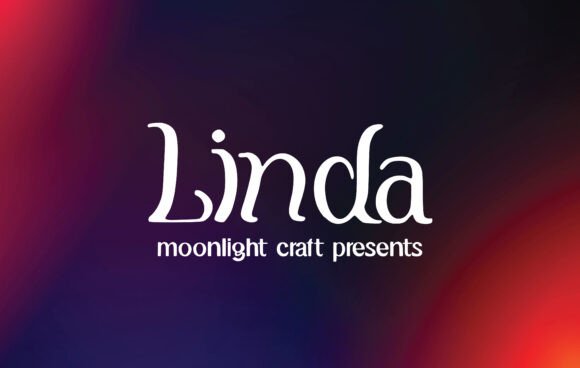
Linda Font: Elevate Your Creative Ideas with this Beautiful Handwritten Font
Linda Font is a stunning handwritten font that has the potential to take your creative ideas to new heights. With its unique and elegant style, it’s the perfect choice for creating eye-catching logos, branding, and quotes. In this article, we’ll explore the features and benefits of Linda Font, and how it can help you elevate your design game.
What is Linda Font?
Linda Font is a beautiful handwritten font that is designed to add a touch of elegance and sophistication to your designs. It’s a versatile font that can be used for a variety of projects, from logos and branding to quotes and social media graphics. With its flowing lines and delicate curves, Linda Font is sure to capture the attention of your audience and leave a lasting impression.
Key Features of Linda Font
- Unique and Elegant Style: Linda Font has a distinctive and stylish look that sets it apart from other fonts. Its elegant curves and flowing lines make it perfect for creating sophisticated designs.
- Handwritten with Love: Linda Font is a handwritten font that is crafted with love and care. Each letter is carefully designed to ensure that it looks natural and effortless.
- High-Quality Design: Linda Font is designed with high-quality graphics, ensuring that it looks great in any size or resolution.
- Easy to Read: Despite its elegant style, Linda Font is easy to read, making it perfect for body text and quotes.
- Multilingual Support: Linda Font supports multiple languages, making it a great choice for designers who work with international clients.
Benefits of Using Linda Font
So, why should you choose Linda Font for your next design project? Here are just a few benefits of using this beautiful handwritten font:
- Adds Elegance and Sophistication: Linda Font adds a touch of elegance and sophistication to your designs, making it perfect for high-end brands and luxury products.
- Stand Out from the Crowd: With its unique and stylish look, Linda Font helps your designs stand out from the crowd and grab attention.
- Improves Readability: Linda Font is easy to read, making it perfect for body text and quotes. This improves the overall readability of your designs and ensures that your message gets across.
- Versatile: Linda Font is a versatile font that can be used for a variety of projects, from logos and branding to quotes and social media graphics.
- Time-Saving: With Linda Font, you can create professional-looking designs in no time. Its high-quality design and ease of use save you time and effort.
How to Use Linda Font
Using Linda Font is easy! Here are a few tips to get you started:
- Logos and Branding: Use Linda Font to create stunning logos and branding materials that reflect your brand’s personality and style.
- Quotes and Social Media Graphics: Add a touch of elegance and sophistication to your quotes and social media graphics with Linda Font.
- Body Text: Use Linda Font for body text to add a personal touch to your designs and make them more readable.
- Mix and Match: Experiment with different font sizes, colors, and styles to create unique and eye-catching designs.
Tips and Tricks for Working with Linda Font
Here are a few tips and tricks to help you get the most out of Linda Font:
- Use it with Contrasting Colors: Use Linda Font with contrasting colors to make it stand out and grab attention.
- Experiment with Font Sizes: Experiment with different font sizes to create visual interest and hierarchy in your designs.
- Pair it with Other Fonts: Pair Linda Font with other fonts to create a unique and stylish look.
- Use it for Headings and Titles: Use Linda Font for headings and titles to add a touch of elegance and sophistication to your designs.
Linda Font is a beautiful handwritten font that has the potential to take your creative ideas to new heights. With its unique and elegant style, it’s the perfect choice for creating eye-catching logos, branding, and quotes. Whether you’re a designer, entrepreneur, or simply someone who loves typography, Linda Font is a great addition to your font collection.
- Is Linda Font easy to read?: Yes, Linda Font is designed to be easy to read, making it perfect for body text and quotes.